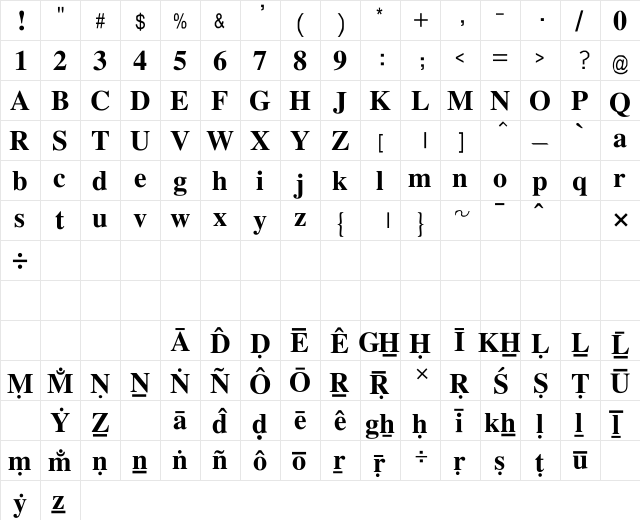
Gargi-1.2c 1.2c
| Designer | S. Khobragade, Dr. Nagarjuna.GNU GP |
Design Context for Gargi-1.2c Typeface
Gargi-1.2c takes a measured approach to typography — its balanced proportions and neutral character make it a reliable workhorse for both digital and print work.
Pro Tip: Use Gargi-1.2c in both headline and body roles to test its range before committing to a single application.